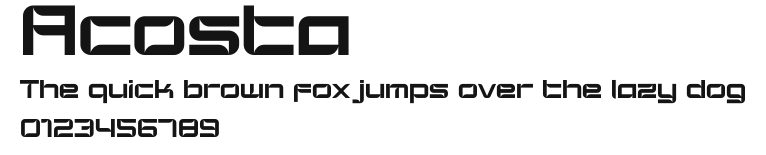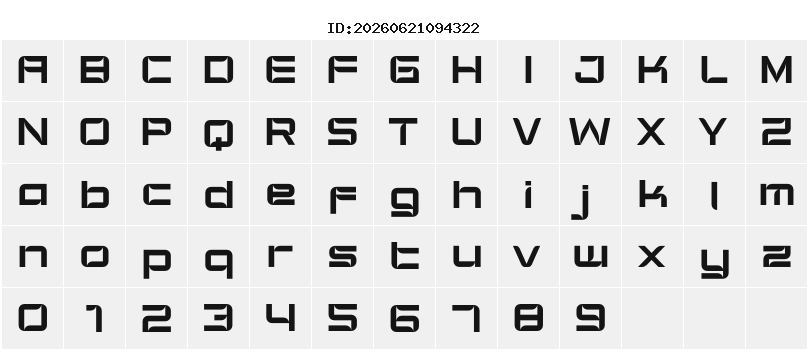
• Font Name: Acosta
• Full Font Name: Acosta
• Designer: Hafizh Naufal Alvarozzy
About Acosta.otf
Acosta.otf is a modern, elegant sans-serif font designed for ultimate readability and visual harmony. Perfect for branding, headlines, web design, and print materials.